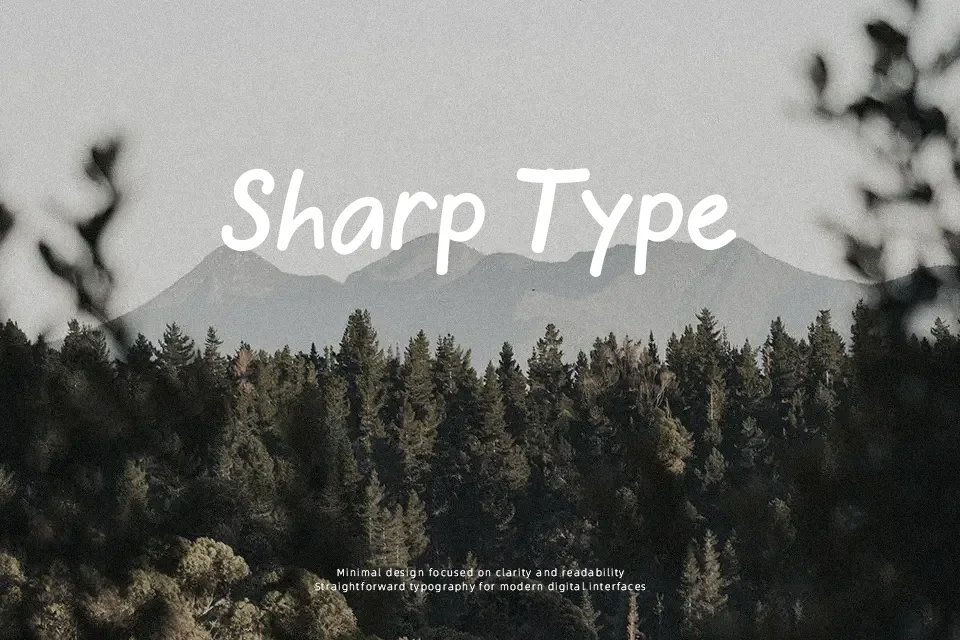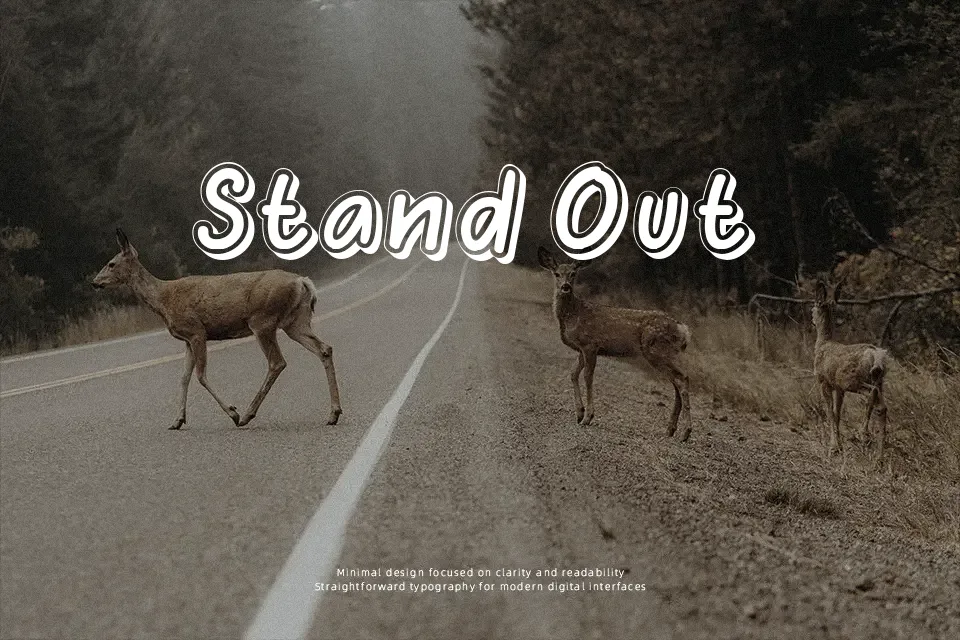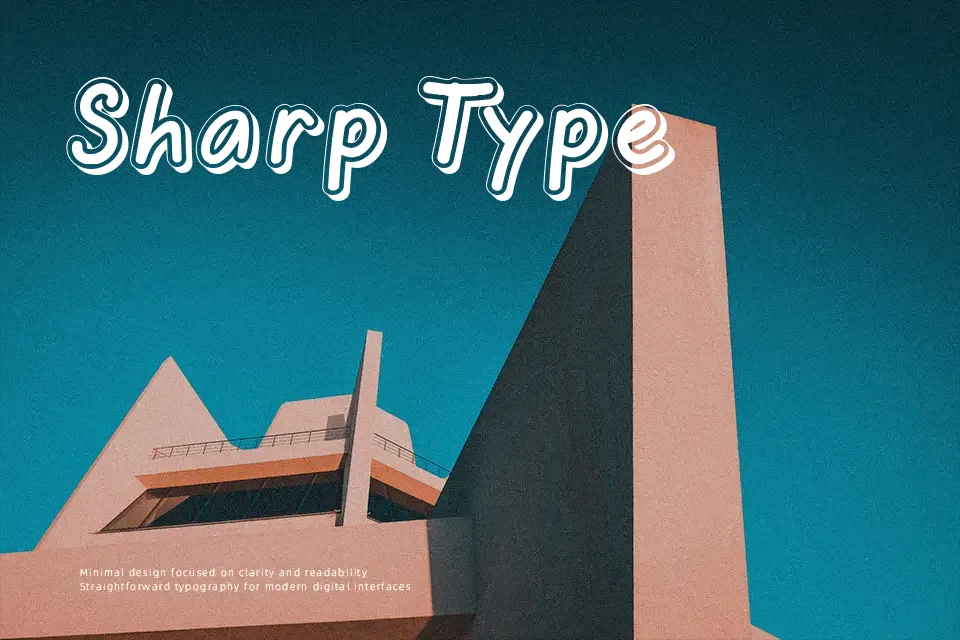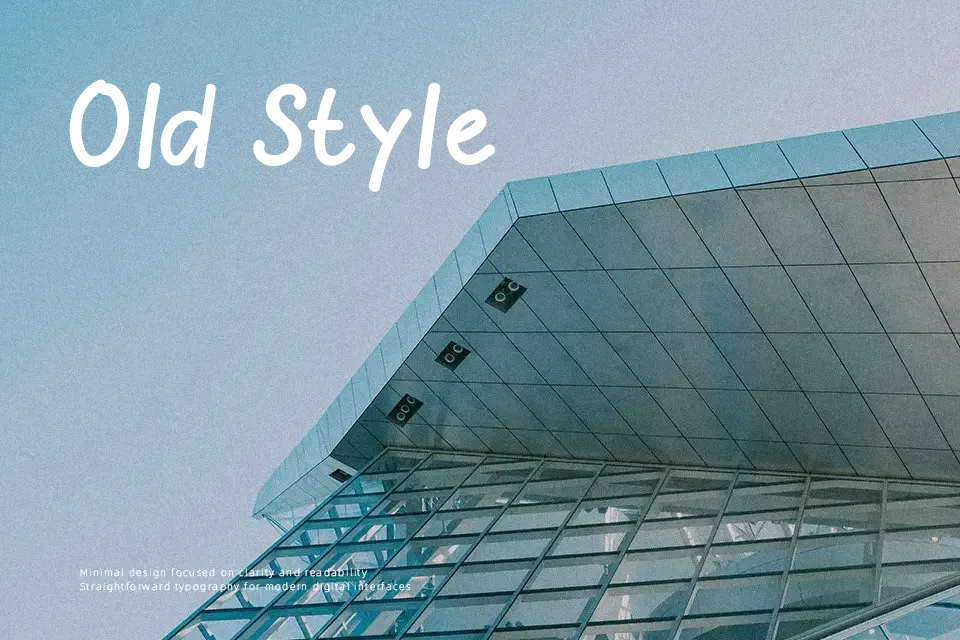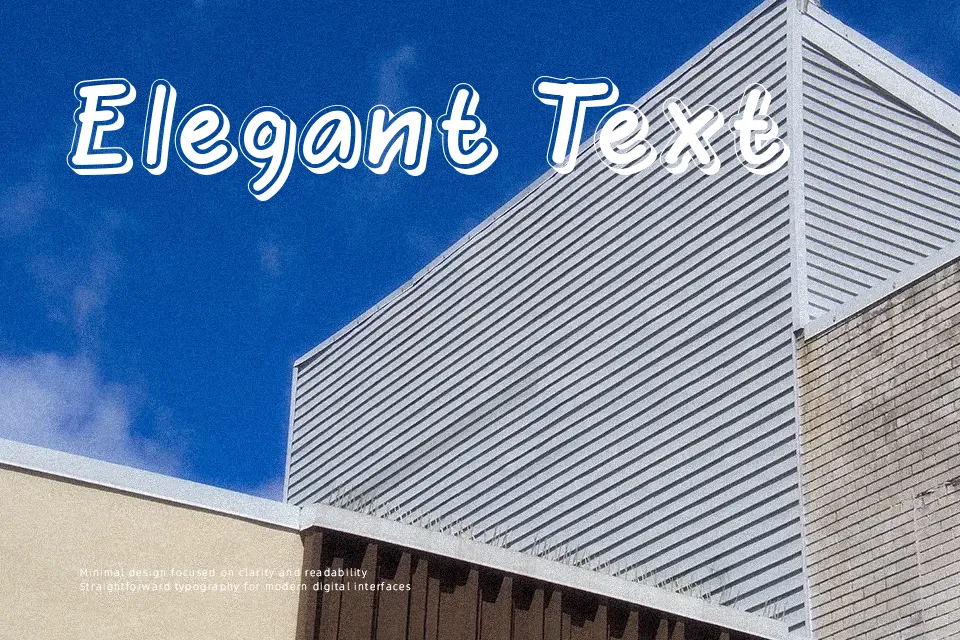
Oretans Font
Oretans Font is built for short, attention-led display text rather than extended copy. Its decorative comic character gives headlines and names a casual, youthful presence, with expressive letterforms that are better viewed at larger sizes. Use it for packaging titles, poster copy, or kids-oriented promotional graphics where the type can remain prominent. The font is likely to work most clearly when given room around each word and paired with a plain supporting typeface. Fine details and decorative forms make it less comfortable for small captions, dense layouts, or continuous reading.
Best For: children’s event posters,playful product packaging,social media headlines,apparel graphics
Perfect for headline, kids, and packaging, with a artistic and comic style.